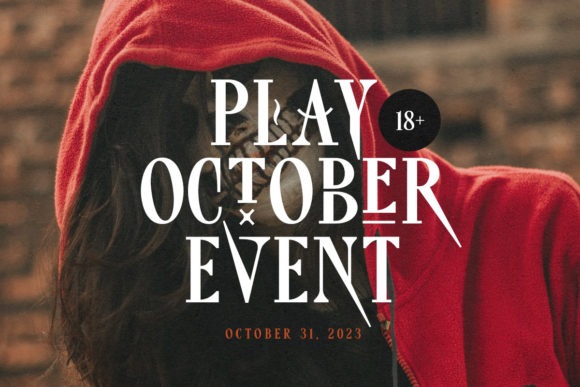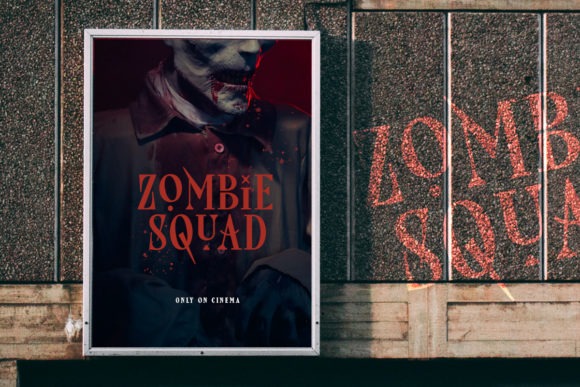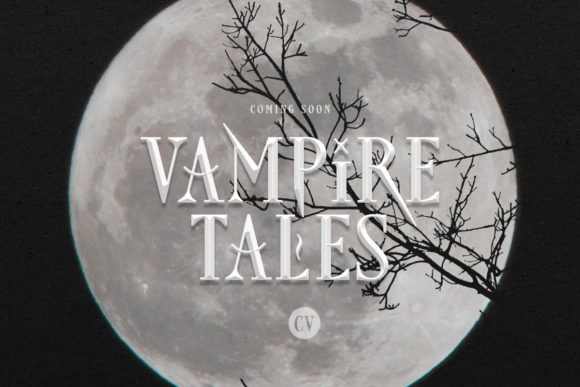
Freaky Story Serif Font is modern serif font created by saridezra with fresh and beautiful look. It has modern and vintage look. Suitable to a wide variety of designs due to its neat and simple style, this font has the potential to become your favorite go-to font, no matter the occasion!